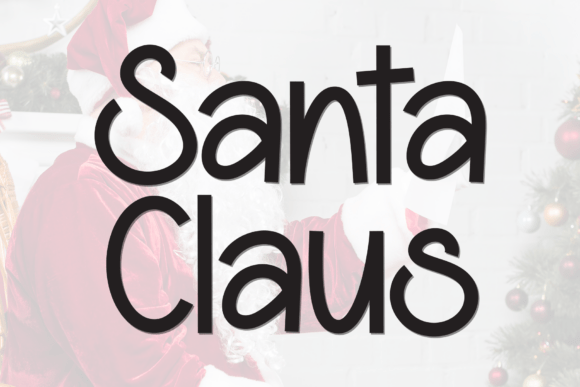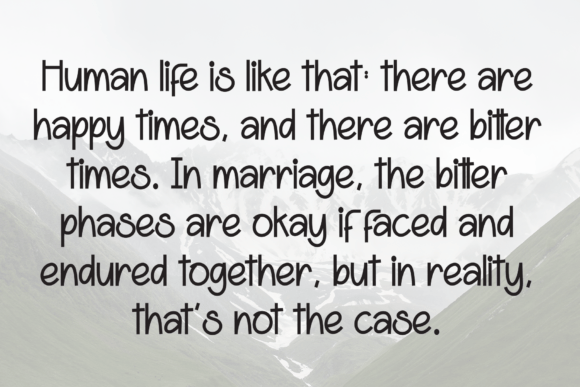
Santa Claus Font
Introducing the delightful charm and tender appeal of a unique handwritten display font. This endearing typography captivates with its friendly strokes and sweet style, creating a joyous atmosphere for your design creations. Perfectly suited for charming wedding invitations, irresistibly fun cards, or bringing vibrancy to any design that needs that extra splash of whimsy. Experience the creative possibilities that this jovial font offers, adding an irresistibly personal and fun-loving touch to your designs.